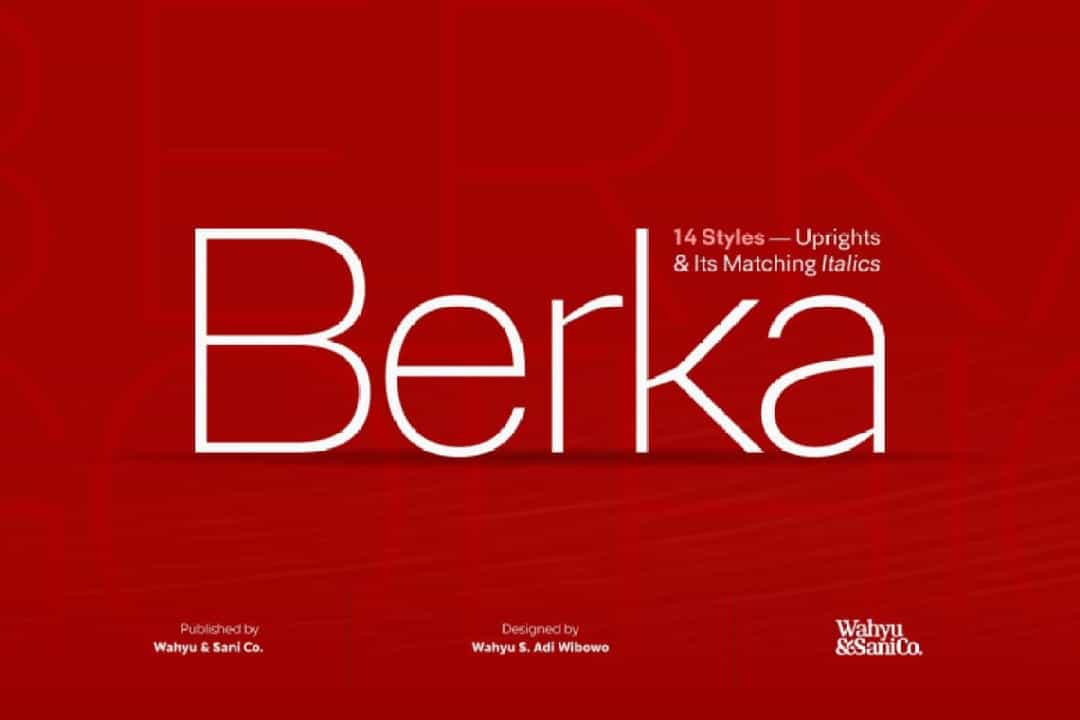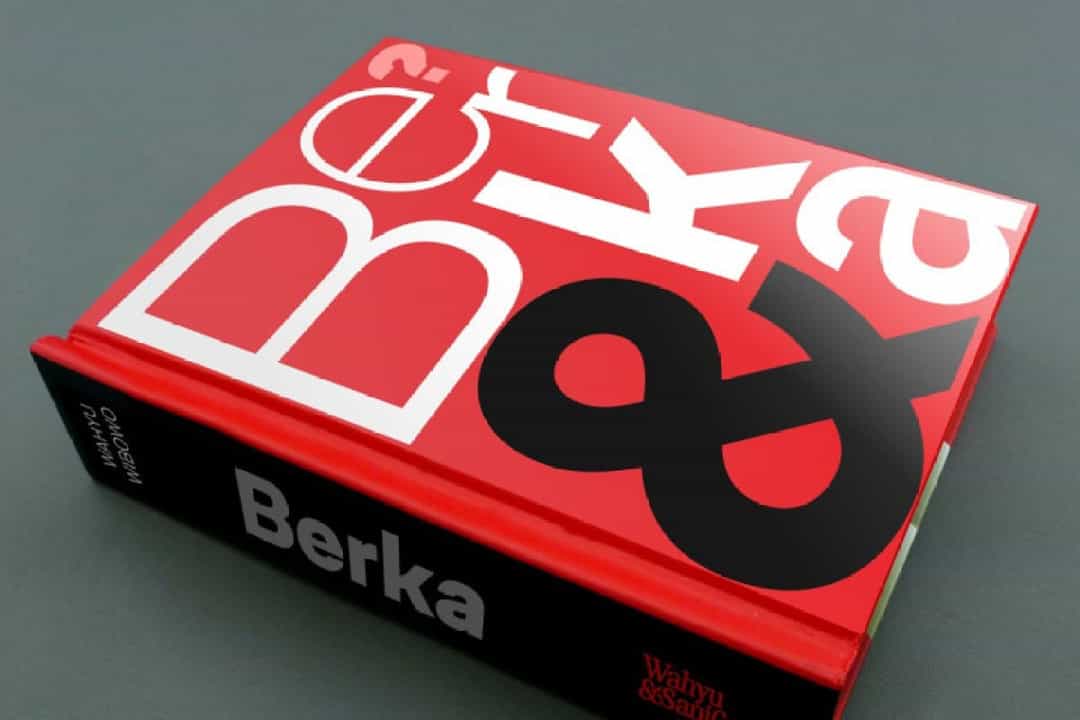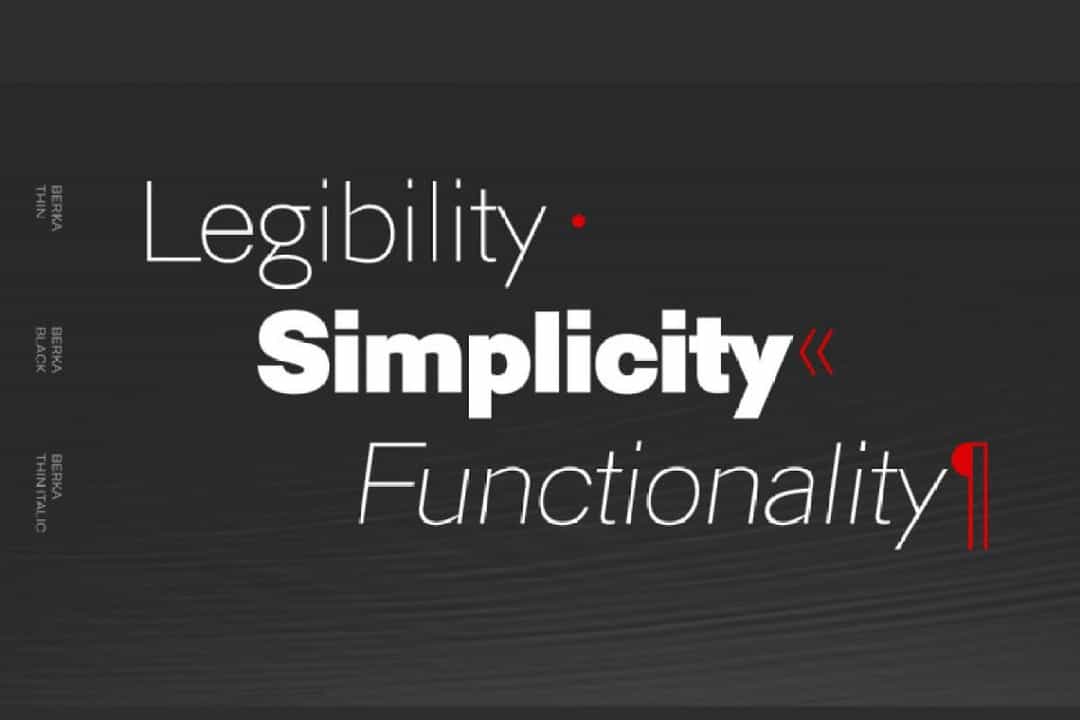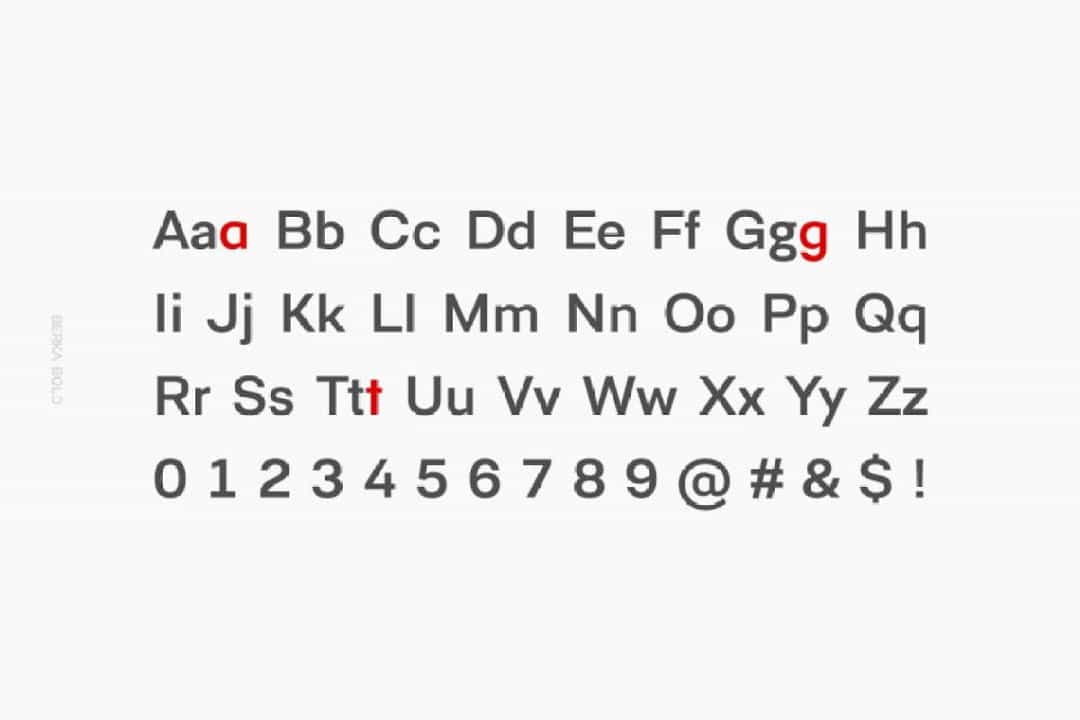
Berka is the low contrast typeface of the grotesque style that has elements of geometry and slightly humanistic. The family of fonts comes with variants that are available in seven weights; Thin to Black with the respective italics. Each of the Berka family members also has OpenType features, including Ordinals Superscripts, Subscripts, Stylistic Alternates and Stylistic Sets proportional Lining, Standard Ligatures, Fractions, Numerators and Denominators.